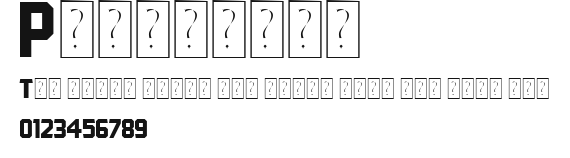
• Font Name: Prezident
• Designer: imagex
About Prezident.ttf
Prezident.ttf is a modern, elegant sans-serif font designed for ultimate readability and visual harmony. Perfect for branding, headlines, web design, and print materials.